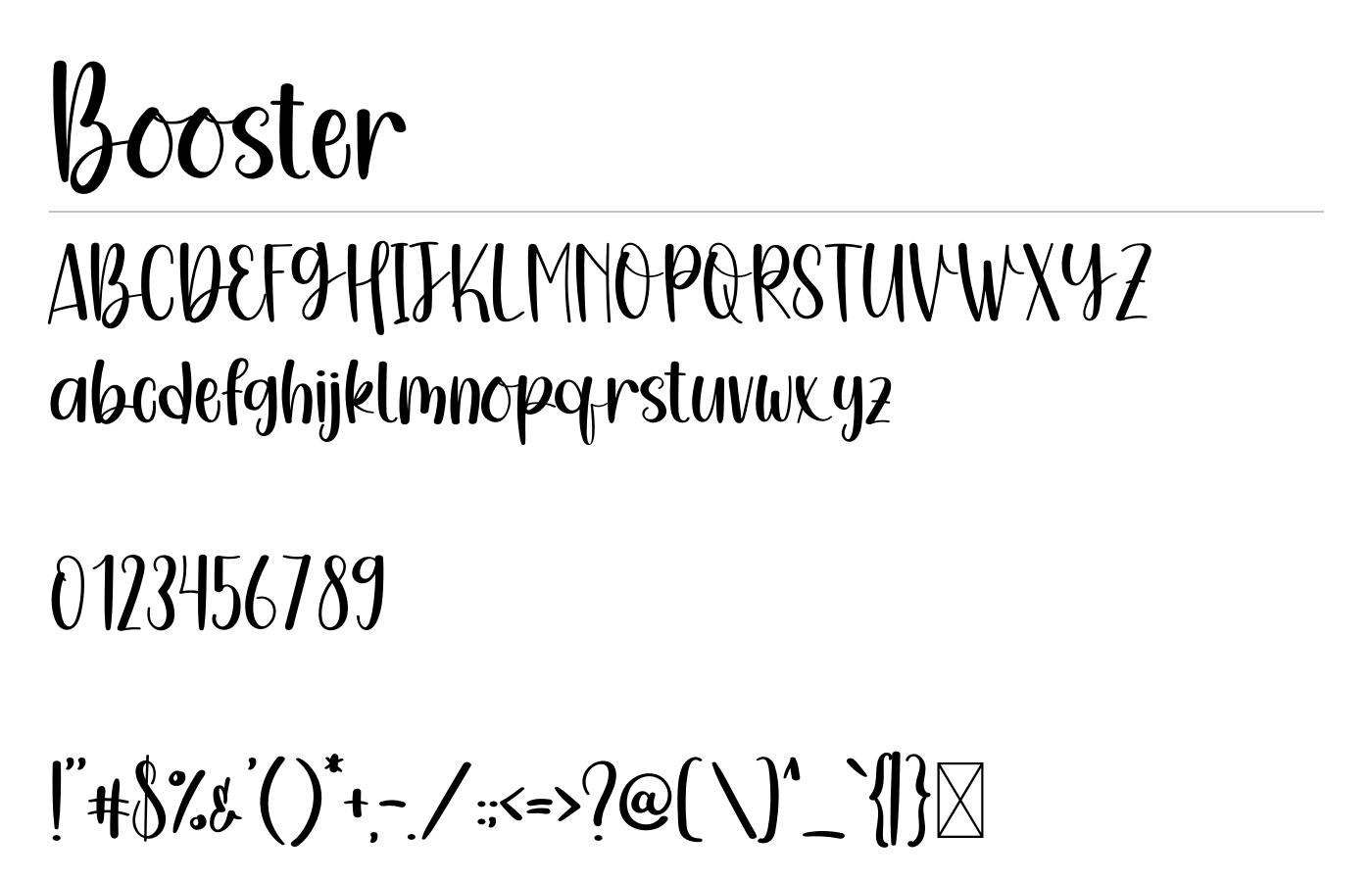
Booster is a playful and lively handwritten script font with a casual, friendly feel. Its tall, narrow letterforms and varied stroke widths create an energetic and dynamic impression, making it perfect for creative branding, invitations, and informal headlines. This font adds a modern, approachable charm to designs that seek a personal and spirited touch.
Booster Font